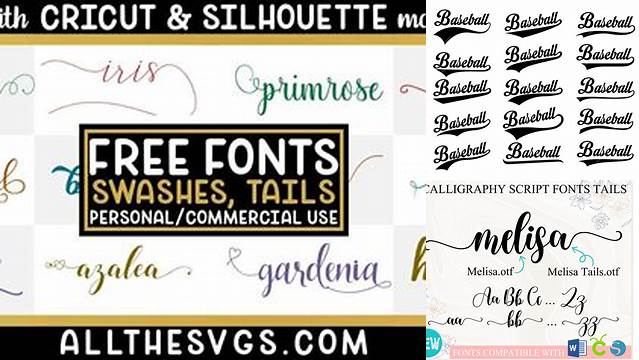
Free Font Generator: Create Unique Fonts With Tails
Hey guys! Ever wanted to create some seriously cool fonts with those awesome tail flourishes? Well, you've come to the right place! Let's dive into the world of free font generators with tails and explore how you can make your text designs pop.
1. Understanding Font Generators with Tails
Font generators with tails are tools that allow you to create unique fonts that have decorative extensions or 'tails' on the letters. These tails can add a touch of elegance, playfulness, or sophistication to your typography. The allure of a free font generator with tails lies in its ability to transform ordinary text into something extraordinary. Imagine crafting invitations, logos, or social media graphics with fonts that have a distinctive flair. The options are limitless, and the impact is significant. The best part? You don’t need to be a professional designer to use these tools effectively. Many free font generators offer user-friendly interfaces that make it easy for beginners to experiment and create stunning results. Just a few clicks, and you can have a font that truly stands out from the crowd. But before you jump in, it’s essential to understand the different types of tail styles available. Some generators offer elegant, flowing tails perfect for wedding invitations, while others provide bold, geometric tails ideal for branding projects. Knowing what you want to achieve will help you choose the right tool and create a font that perfectly matches your vision.
2. Benefits of Using a Free Font Generator
Using a free font generator with tails offers a plethora of benefits, especially for those who are on a tight budget or just starting out in the world of design. One of the most obvious advantages is the cost – or rather, the lack of it. You can create stunning, custom fonts without having to shell out any money for expensive software or hiring a professional designer. This is particularly useful for small businesses, startups, or hobbyists who want to make their projects look professional without breaking the bank. Another significant benefit is the ease of use. Many free font generators come with intuitive interfaces that make it simple to design your fonts, even if you have no prior experience. You can experiment with different styles, sizes, and tail designs to see what works best for your project. Plus, these tools often provide real-time previews, so you can see exactly how your font will look before you finalize it. Furthermore, using a free font generator can save you a lot of time. Instead of spending hours trying to create a custom font from scratch, you can use a generator to quickly produce a unique and eye-catching design. This can be a huge time-saver, especially when you're working on multiple projects or have tight deadlines. Finally, free font generators offer a great way to explore your creativity and develop your design skills. By experimenting with different fonts and tail styles, you can learn what works well together and develop your own unique aesthetic. This can be invaluable if you're looking to improve your design skills or even start a career in graphic design.
3. Key Features to Look for in a Font Generator
When selecting a free font generator with tails, it’s important to consider several key features to ensure you’re getting the most out of the tool. First and foremost, look for a generator that offers a wide variety of tail styles. The more options you have, the more creative you can be with your designs. Some generators may only offer a few basic tail styles, while others provide a vast array of options, from elegant swirls to bold geometric shapes. A good generator should also allow you to customize the size, shape, and position of the tails. This level of control is crucial for creating fonts that perfectly match your vision. Another important feature to look for is ease of use. The generator should have an intuitive interface that makes it easy to design your fonts, even if you have no prior experience. Look for tools that offer real-time previews, so you can see exactly how your font will look as you make changes. Additionally, consider the output options offered by the generator. Ideally, you should be able to download your fonts in a variety of formats, such as TTF, OTF, and SVG. This will ensure that your fonts are compatible with a wide range of design software and platforms. Finally, check to see if the generator offers any additional features, such as the ability to add custom glyphs or adjust the spacing between letters. These extra features can give you even more control over the look and feel of your fonts.
4. Step-by-Step Guide to Creating Fonts with Tails
Creating fonts with tails using a free font generator with tails is a straightforward process. Here’s a step-by-step guide to help you get started:
- Choose Your Generator: Start by selecting a free font generator that offers tail options. Research different tools and read reviews to find one that suits your needs and skill level.
- Select a Base Font: Most generators will allow you to choose a base font to start with. This is the basic style of the letters before you add any tails. Consider the overall look and feel you want to achieve and select a base font that complements your vision.
- Customize the Tails: This is where the fun begins! Explore the different tail styles offered by the generator and experiment with various options. Adjust the size, shape, and position of the tails to create a unique and eye-catching design.
- Adjust Letter Spacing: Pay attention to the spacing between letters to ensure that your font is easy to read. Some generators offer tools to adjust the kerning and tracking, allowing you to fine-tune the spacing to your liking.
- Preview Your Font: Use the real-time preview feature to see how your font will look in different sizes and contexts. This will help you identify any areas that need improvement.
- Test Your Font: Before using your font in a real project, test it out in different applications and on different devices to ensure that it looks as expected. This will help you catch any potential issues before they become a problem.
5. Best Free Font Generators with Tail Options
Finding the right free font generator with tails can be a game-changer for your design projects. Here are a few of the best options available:
- Calligraphr: This tool allows you to create custom handwritten fonts, including those with decorative tails. You can upload your own handwriting samples and use Calligraphr to turn them into a usable font.
- FontStruct: FontStruct is a modular font-building tool that lets you create fonts using geometric shapes. While it doesn’t offer pre-made tail options, you can easily create your own using the tool’s building blocks.
- BirdFont: BirdFont is a free and open-source font editor that gives you complete control over every aspect of your font design. It’s a bit more complex than some of the other options, but it offers a high degree of flexibility.
- YourFonts: This online tool lets you create fonts from your own handwriting. Simply print out a template, fill it in with your handwriting, and upload it to YourFonts. The tool will then convert your handwriting into a usable font.
- FontForge: FontForge is a powerful font editor that’s been around for many years. It’s a bit more technical than some of the other options, but it offers a wide range of features for creating and editing fonts.
19. Font Trends and Tail Styles
20. Accessibility Considerations for Tail Fonts
21. Optimizing Fonts for Web Use
23. Creating Monogram Fonts with Tails
24. Using Variable Fonts with Tails
25. Font Generators for Different Languages
26. Troubleshooting Font Issues
27. Best Practices for Font Management
28. The Future of Font Design
29. Resources for Learning Font Design
30. Showcasing Your Font Creations